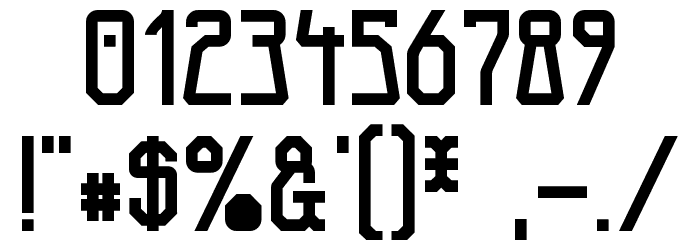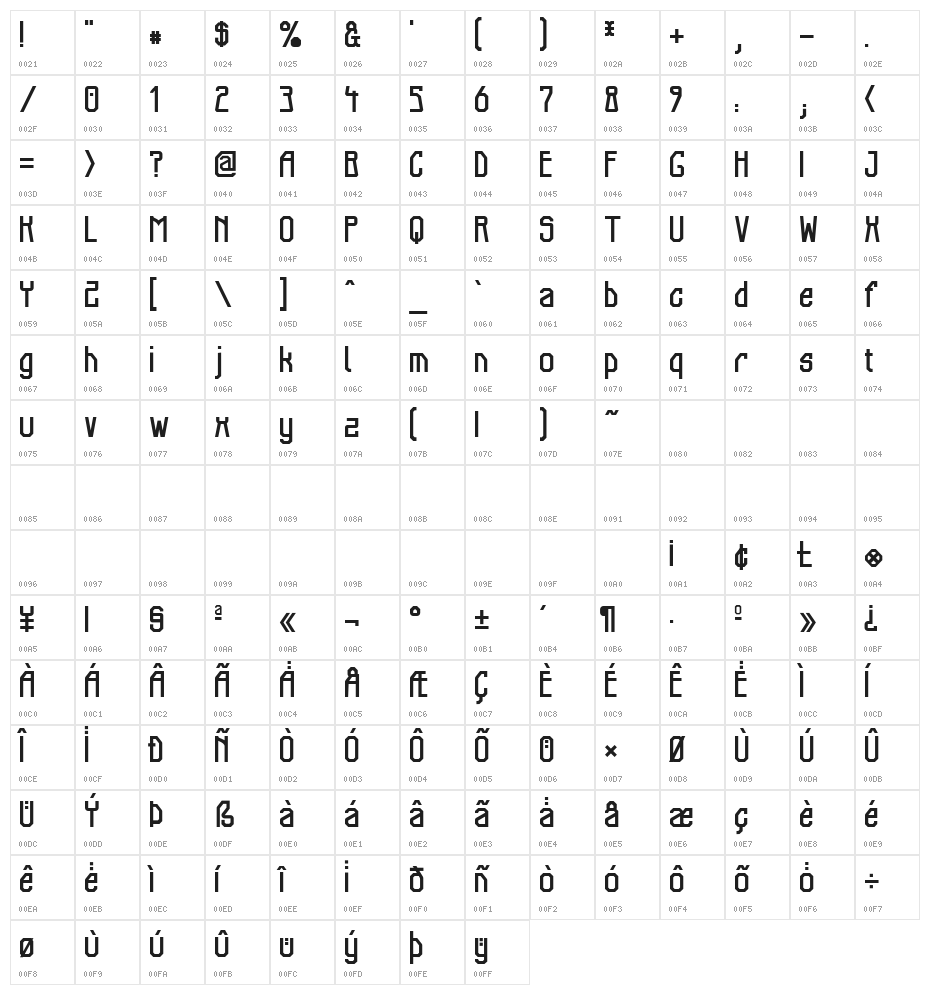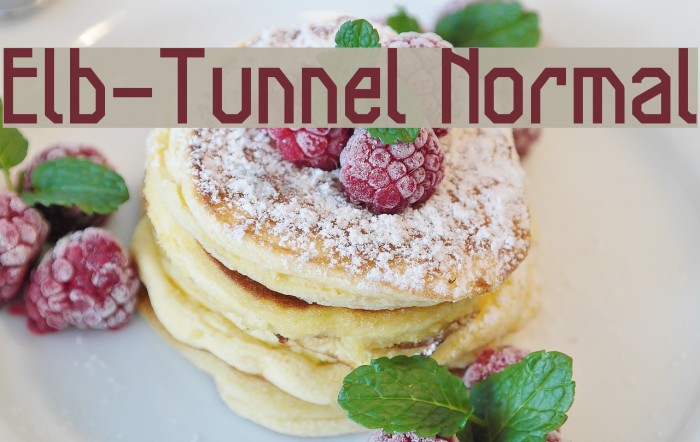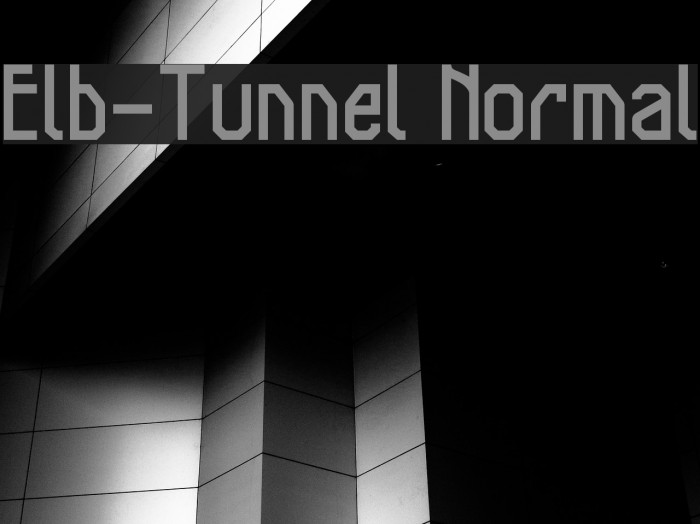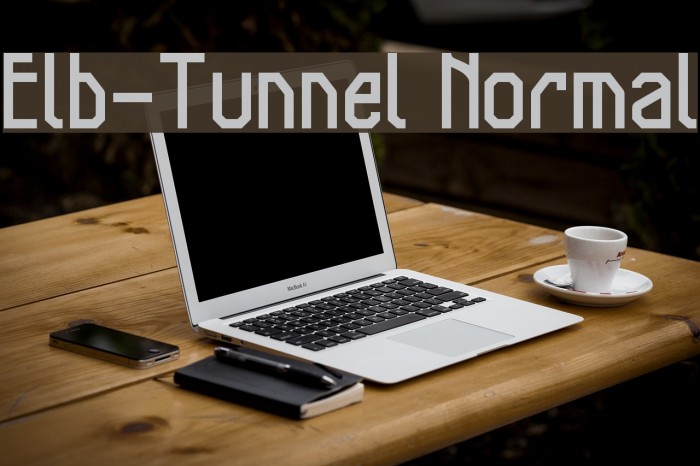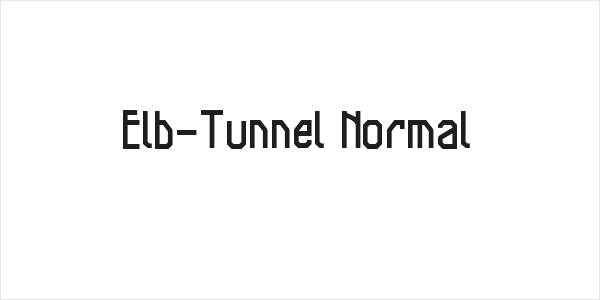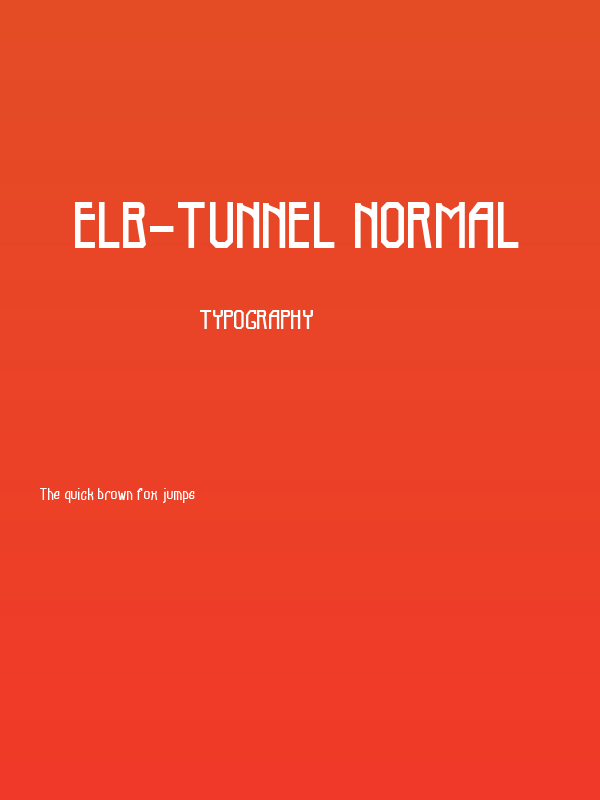
Elb-Tunnel Normal Font
Elb-Tunnel Normal Description
This font features a geometric and industrial design, characterized by its bold, angular lines and uniform stroke width. The uppercase letters are particularly striking, with a strong presence and a modern, almost futuristic feel. The lowercase letters maintain the same geometric style, ensuring consistency throughout the typeface. Numbers and special characters are designed to match the overall aesthetic, making this font versatile for various applications. The clean, sharp edges and lack of curves give it a distinctive, mechanical appearance, suitable for projects that require a contemporary and edgy look.
| Use Case | Headlines, Logos, Signage |
| Proposed Projects | Ideal for branding, signage, posters, and any project requiring a modern, industrial look. |